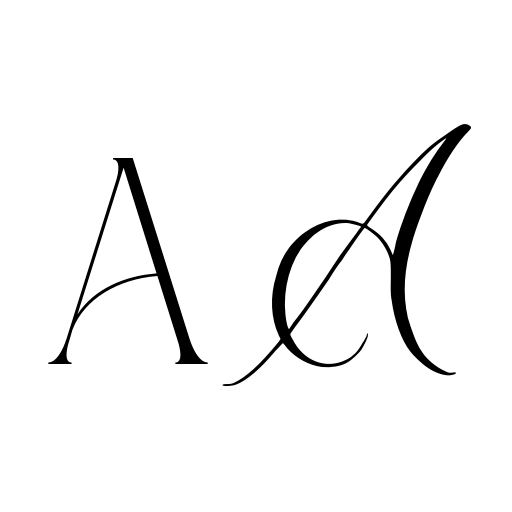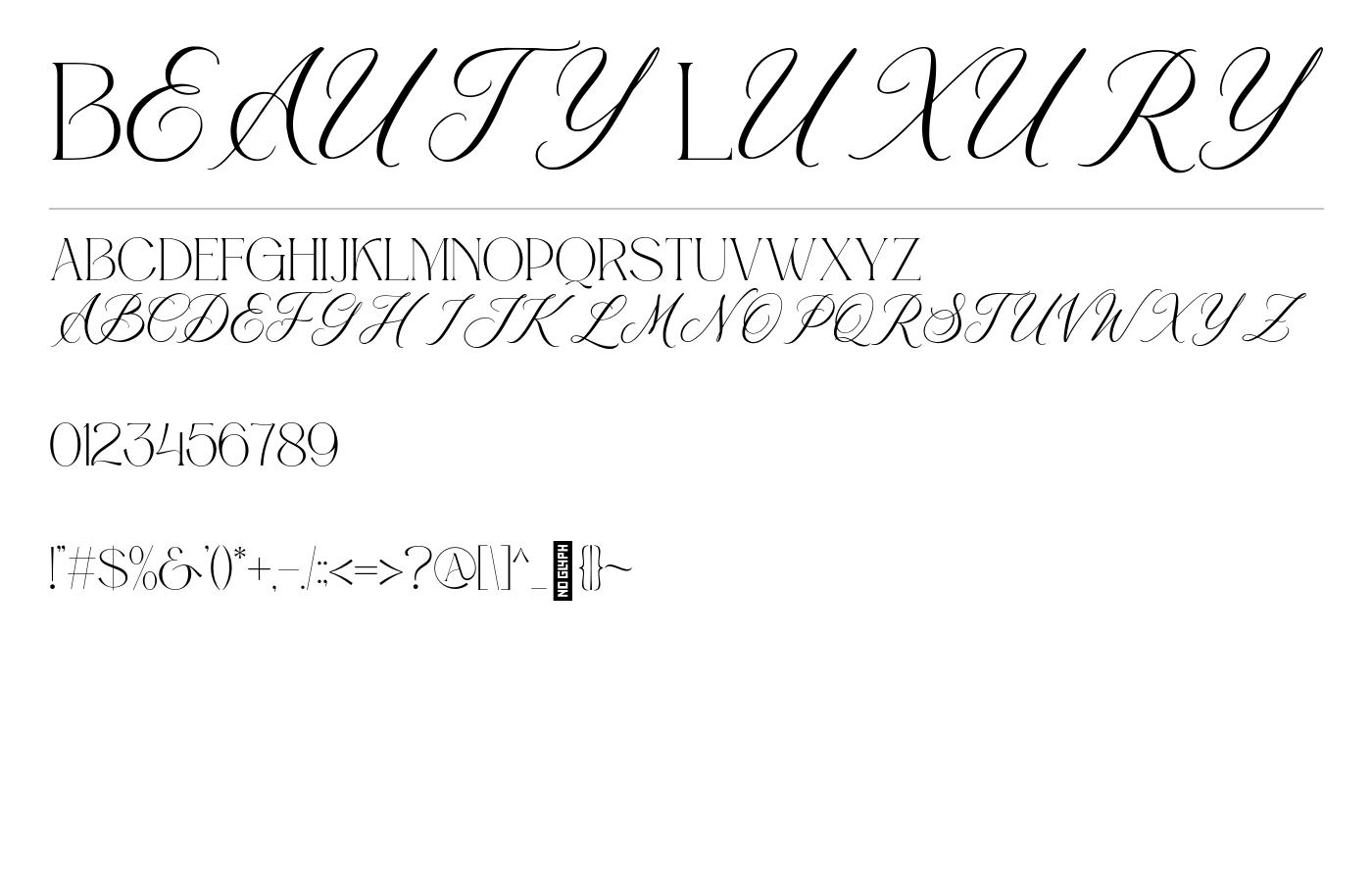
Beauty Luxury Font is an elegant, high-contrast serif typeface with delicate, slender strokes and stylishly sweeping curves that evoke a sense of sophistication and refinement. Its tall, narrow letterforms and graceful script-style italics make it ideal for luxury branding, fashion, and upscale editorial projects where a touch of glamour and exclusivity is desired. This font works best in headlines and logos that aim to convey beauty and elegance with a modern, classy appeal.
Beauty Luxury Font
About Beauty Luxury Font